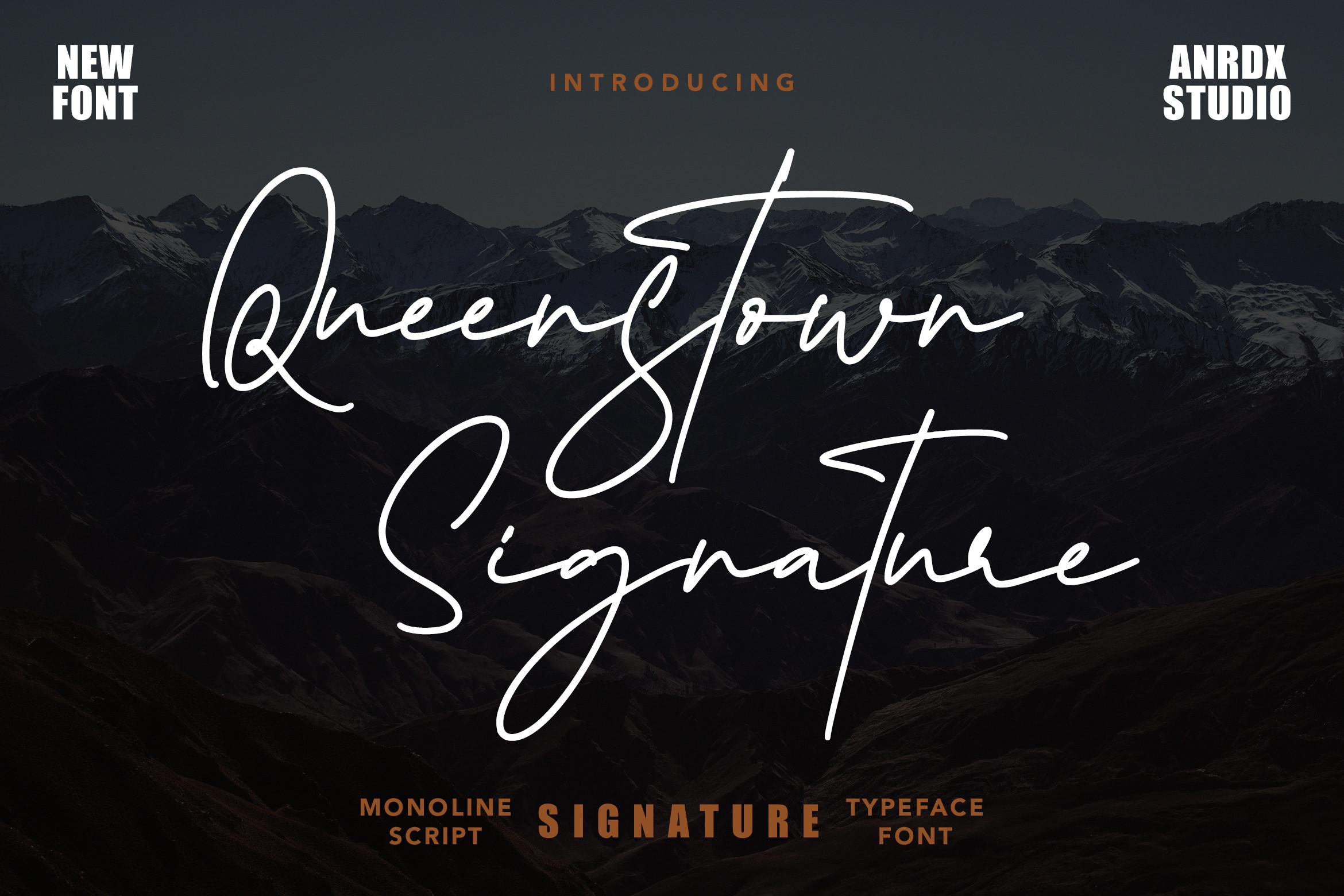
Queenstown Signature Font Description
Queenstown Signature is a chic script font carefully created with a touch of elegance. Whether you’re looking for fonts for Instagram or calligraphy scripts for DIY projects, this font will turn any creative idea into a true piece of art!